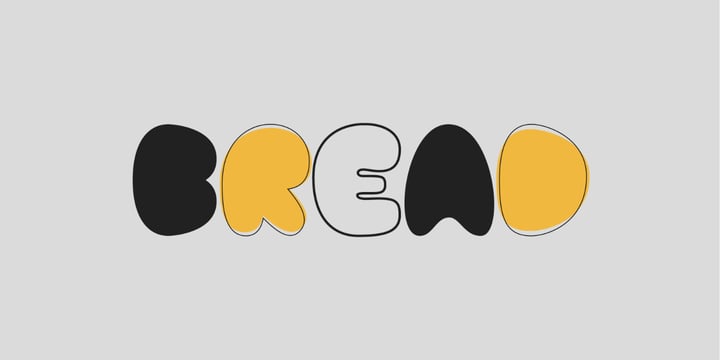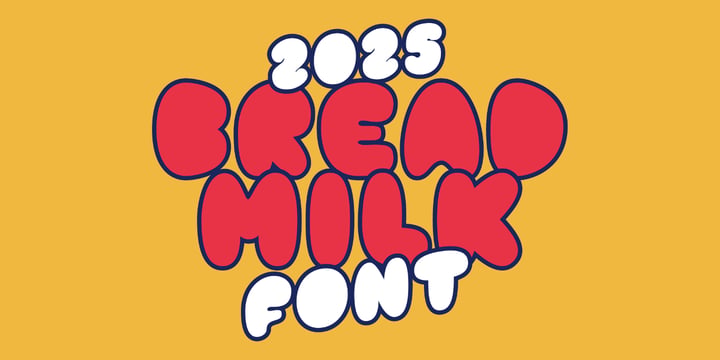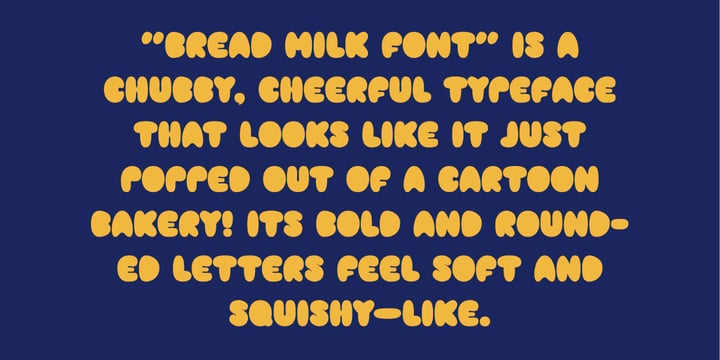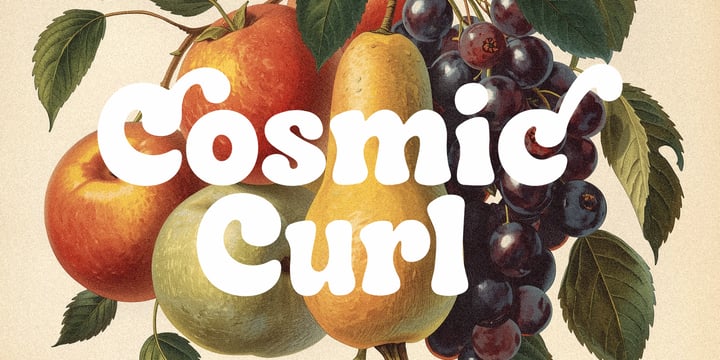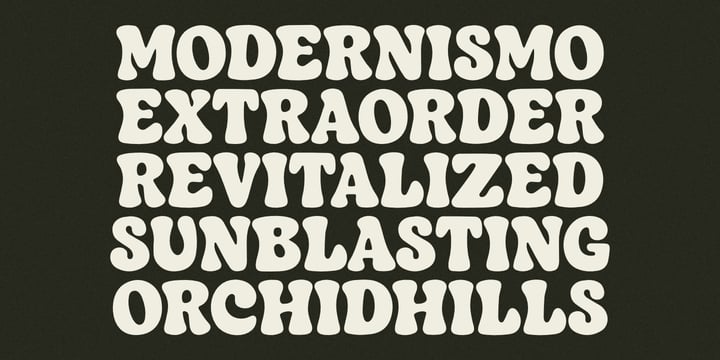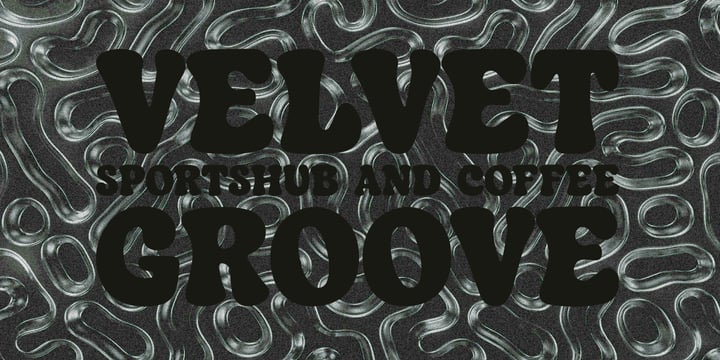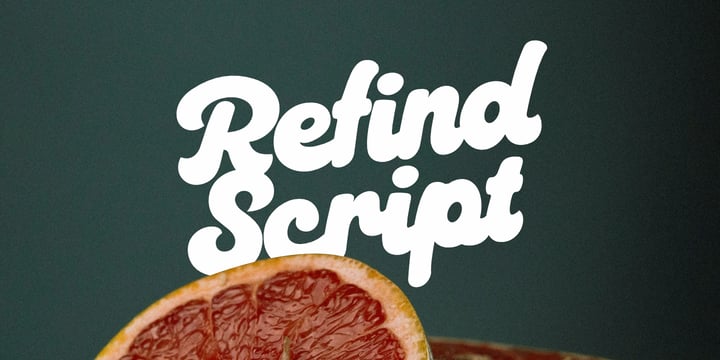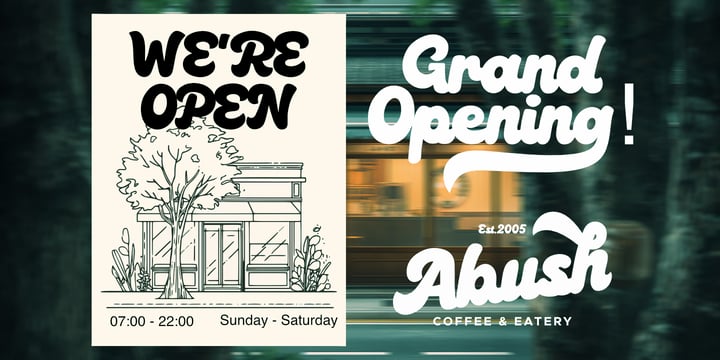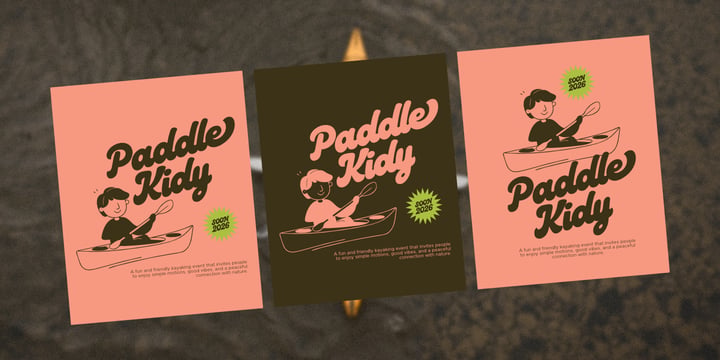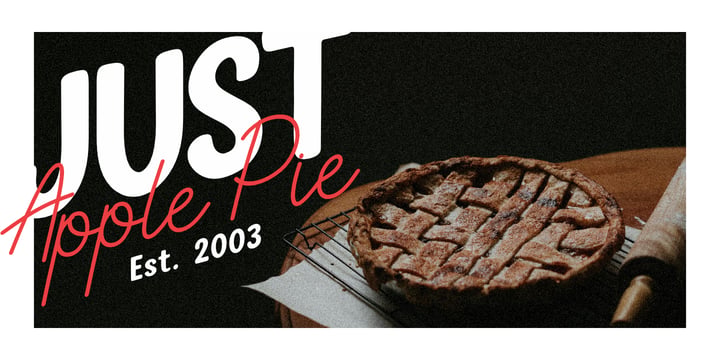
Angga Monad
I am Angga Monad, a type designer and the founder of Modikstype, a type foundry based in Bandung, Indonesia. I am deeply passionate about type design and driven by a strong dedication to creating typefaces that are both distinctive and highly functional. With a solid background in graphic design, I approach typography with a clear understanding of visual communication and detail.
Originally trained as a graphic designer, my growing fascination with letterforms led me to focus more intensely on typeface design. Over the years, I have explored typography through hands-on practice, research, and continuous experimentation, shaping my perspective on how type can define identity, emotion, and clarity in design.
My work is centered on creating typefaces that balance clean structure, bold character, and practical usability. I strive to design fonts that not only fulfill technical and functional needs but also bring a strong and memorable visual presence to branding, editorial, and digital projects.
Through Modikstype, I continuously explore contemporary design approaches while refining each typeface with precision and care. I am committed to pushing my work forward by experimenting with new ideas, improving craftsmanship, and contributing meaningful type solutions for designers around the world.